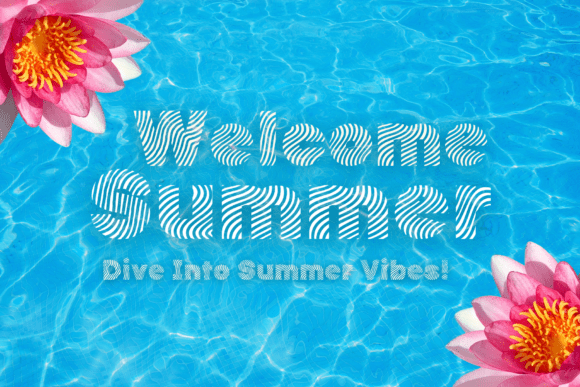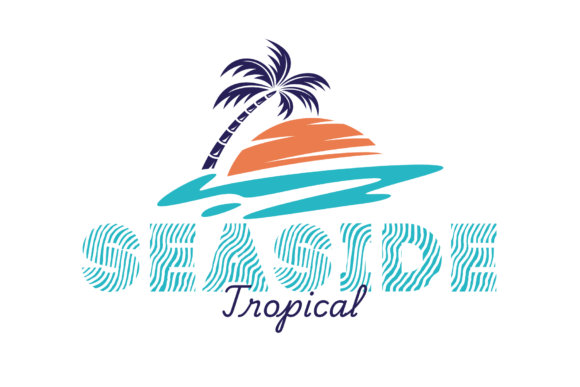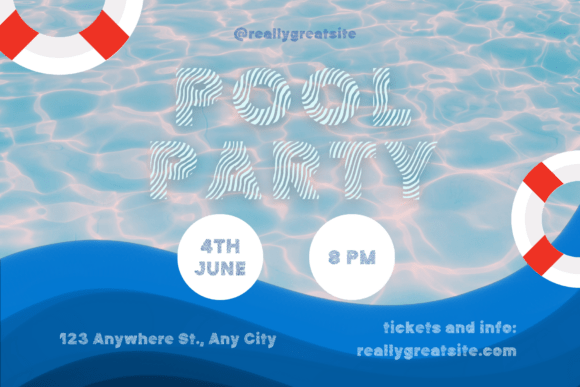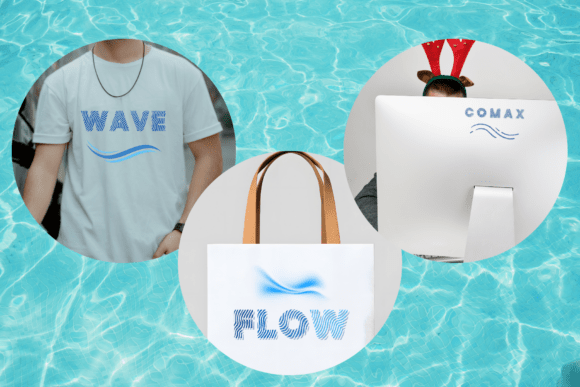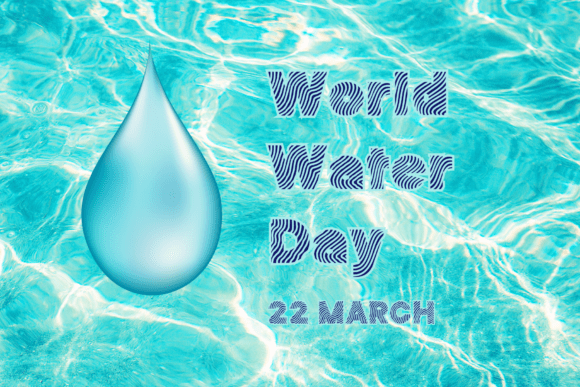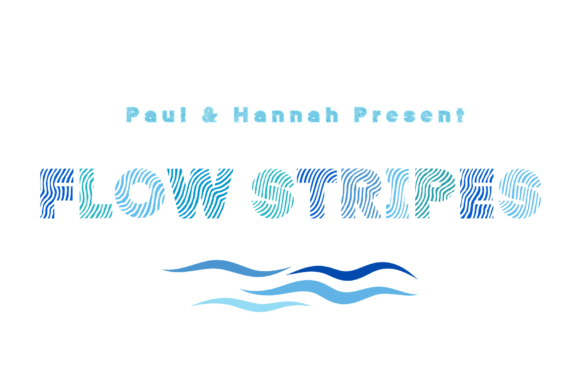
Introducing Flow Stripes Font: A Mesmerizing Aesthetic for Your Designs
Are you looking for a font that can add a touch of fluidity and kinetic energy to your designs? Look no further than Flow Stripes, a highly decorative display font that is sure to make a statement. This unique typeface features complex, stylized undulating waves and stripes that form each character, giving it a mesmerizing aesthetic that is perfect for projects focused on motion and nature.
A Unique and Visually Striking Choice
Flow Stripes beautifully captures the organic movement of water, making it an ideal choice for coastal or nautical branding, environmental and nature-themed designs, water sports and swim apparel logos, and summer event posters. The font’s use of varying blue and green tones in the preview highlights its aquatic, fresh, and modern feel, which is sure to grab the attention of your audience.
Designed for Maximum Decorative Impact
Flow Stripes is an exceptional statement piece, designed for maximum decorative impact in titles and large text. Its unique, stylized structure includes uppercase characters and essential marks, all infused with the linear wave pattern. This makes it perfect for creating eye-catching headlines, titles, and packaging for beverages or water-related products.
Whether you’re a designer or crafter, Flow Stripes is a versatile font that can be used in a variety of creative projects. Its dynamic, colorful, and naturally flowing vibe makes it perfect for:
• Coastal or nautical branding
• Environmental and nature-themed designs
• Water sports and swim apparel logos
• Summer event posters
• Unique headline text
• Packaging for beverages or water-related products
• Any creative project seeking a dynamic, colorful, and naturally flowing vibe
Key Features of Flow Stripes Font
Here are some of the key features that make Flow Stripes a standout font:
• Highly decorative display font with complex, stylized undulating waves and stripes
• Each character is formed entirely by the wave pattern, giving it a unique and mesmerizing aesthetic
• Uppercase characters and essential marks included
• Linear wave pattern infused in all characters
• Perfect for titles, headlines, and large text
• Ideal for projects focused on motion and nature
Tips for Using Flow Stripes Font
Here are some tips for using Flow Stripes font in your designs:
• Use it as a statement piece: Flow Stripes is designed to make a statement, so use it as a headline or title font to grab attention.
• Pair it with a simple font: To create visual interest, pair Flow Stripes with a simple font for body text.
• Experiment with colors: The font’s aquatic, fresh, and modern feel lends itself well to blue and green tones, but feel free to experiment with other colors to create a unique look.
• Use it in combination with natural textures: To enhance the natural, organic feel of the font, use it in combination with natural textures like wood, stone, or watercolor backgrounds.
Flow Stripes font is a unique and visually striking choice for designers and crafters looking to add a touch of fluidity and kinetic energy to their designs. Its highly decorative display font, complex wave pattern, and aquatic feel make it perfect for projects focused on motion and nature. With its versatility and range of uses, Flow Stripes is sure to become a go-to font in your design arsenal.